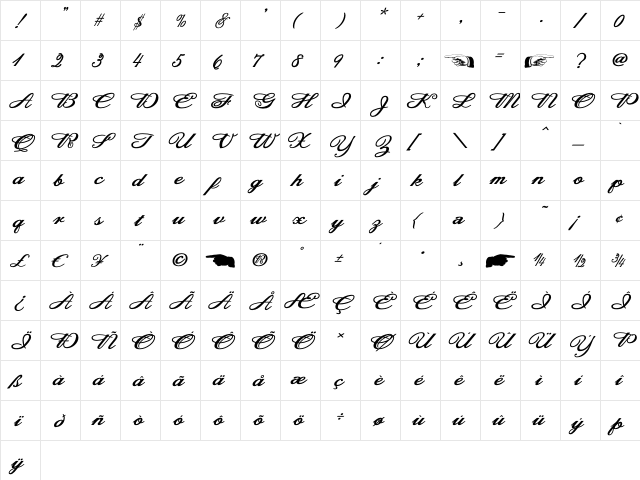
Brewmaster Regular
| Designer | Michael Hagemann |
Design Context for Brewmaster Typeface
Brewmaster is a composed and adaptable typeface that performs quietly and consistently across a wide range of design contexts.